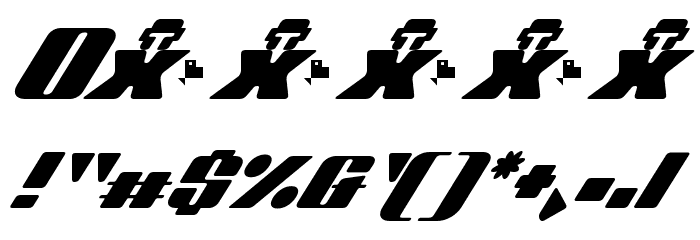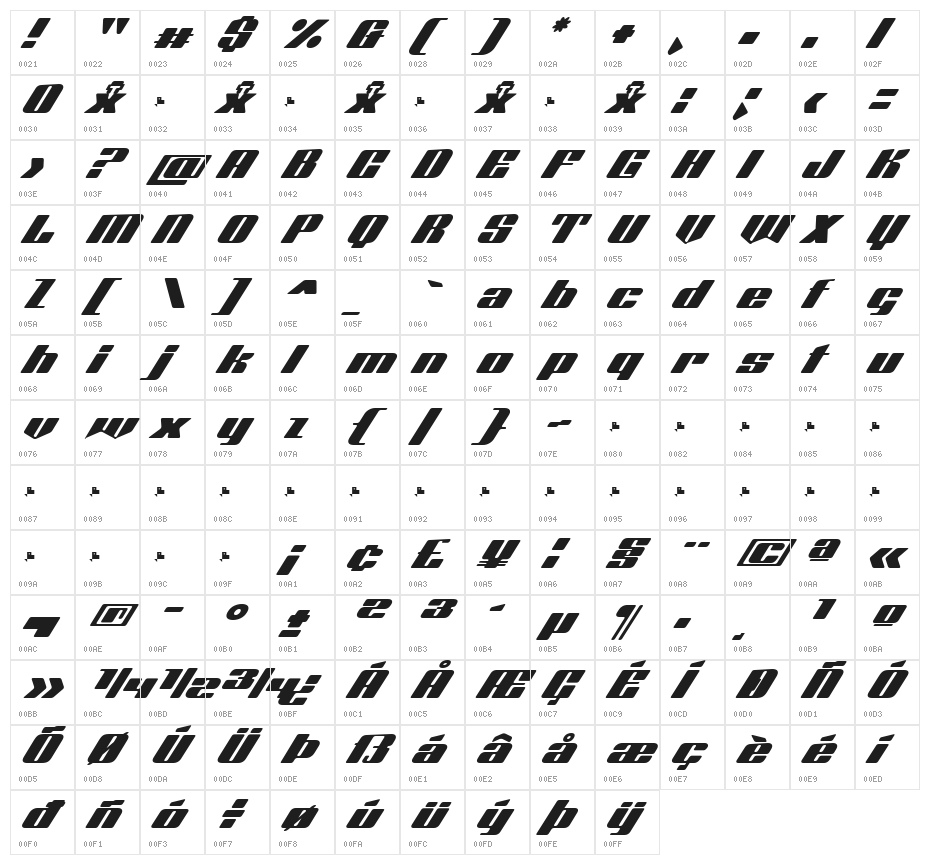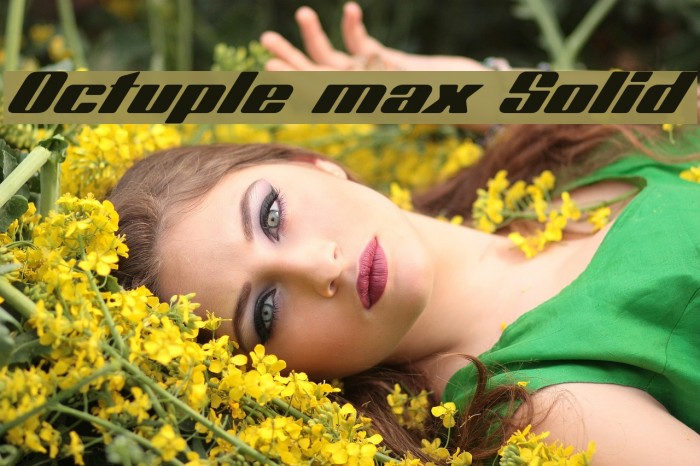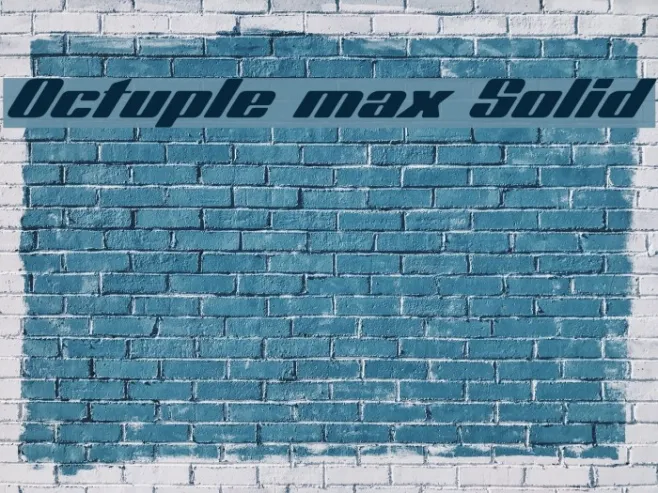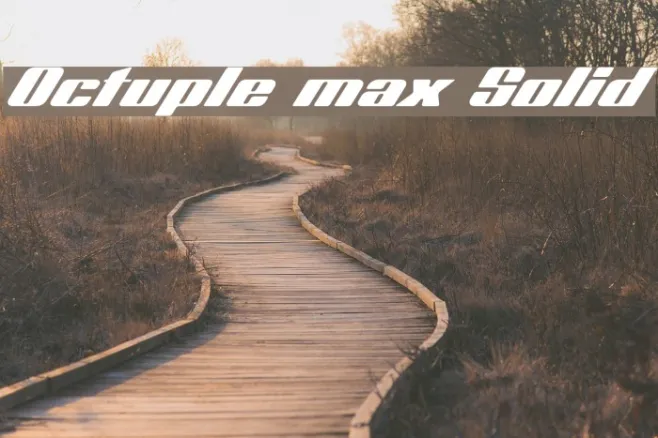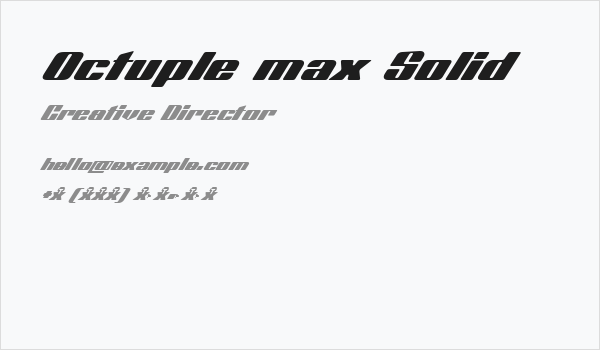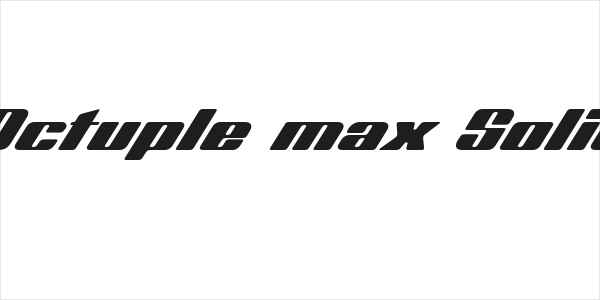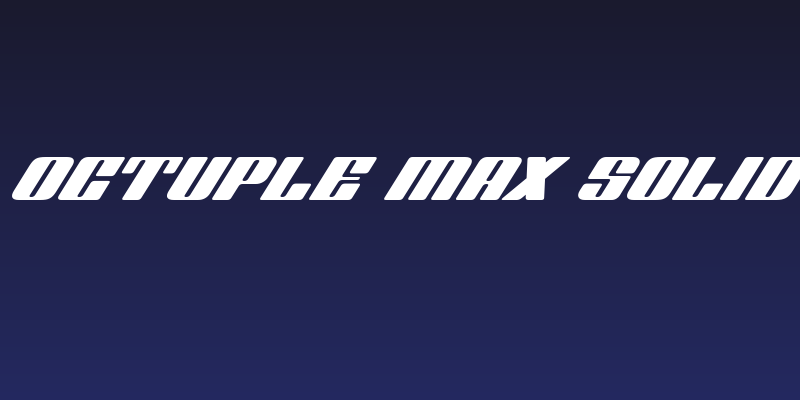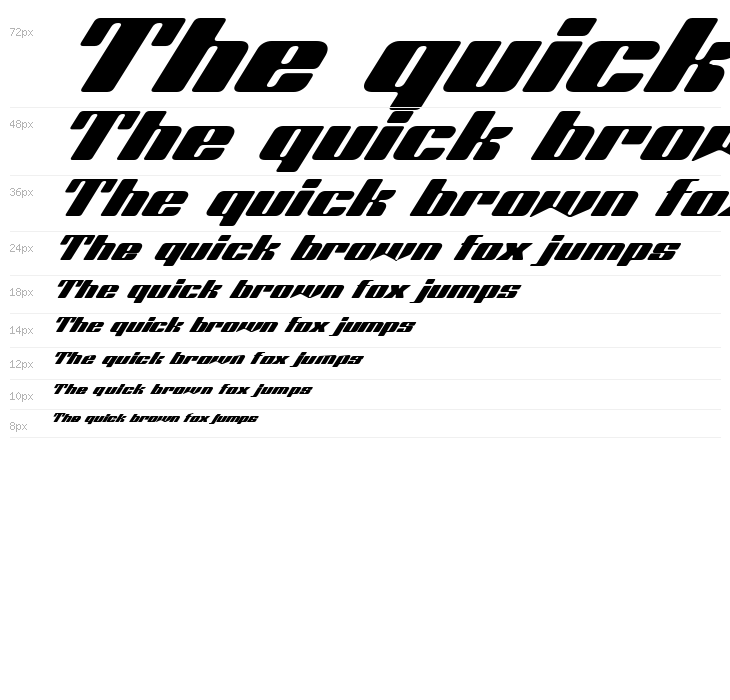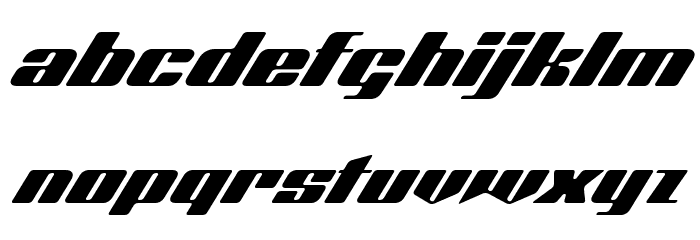
Octuple max Solid Font
Octuple max Solid Description
This font features a bold, angular design with a strong geometric influence. The characters are slanted, giving a sense of motion and dynamism. The uppercase letters are particularly striking, with sharp edges and a blocky appearance that commands attention. The lowercase letters maintain the same angular style, ensuring consistency across the typeface. Numbers and special characters are equally bold and stylized, making them suitable for impactful designs. The overall aesthetic is modern and futuristic, ideal for projects that require a strong visual presence.
| Use Case | Logos, Headlines |
| Proposed Projects | Ideal for branding, sports team logos, video game titles, and futuristic design projects. |